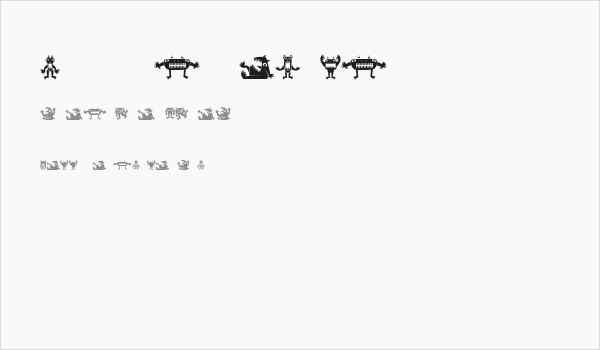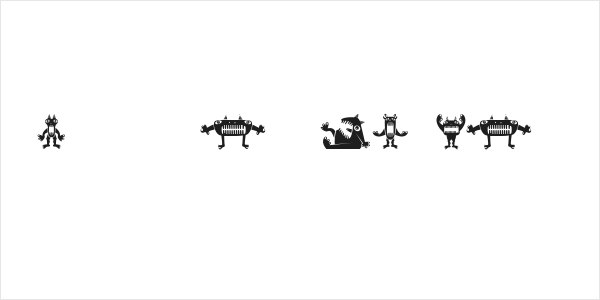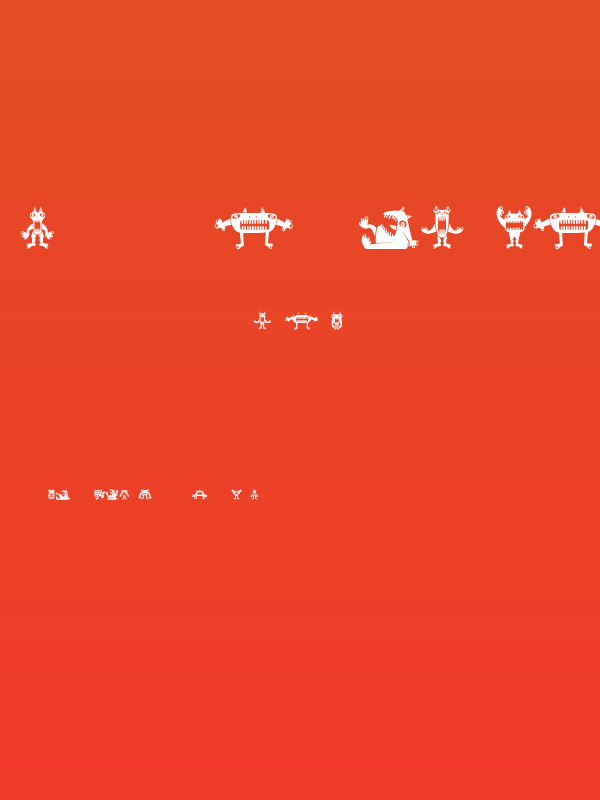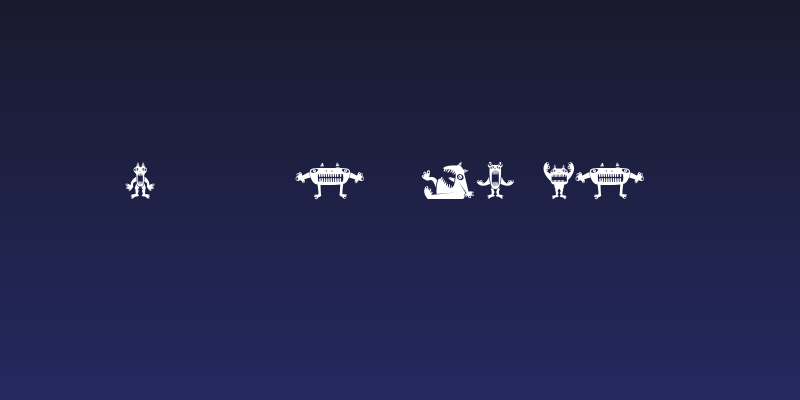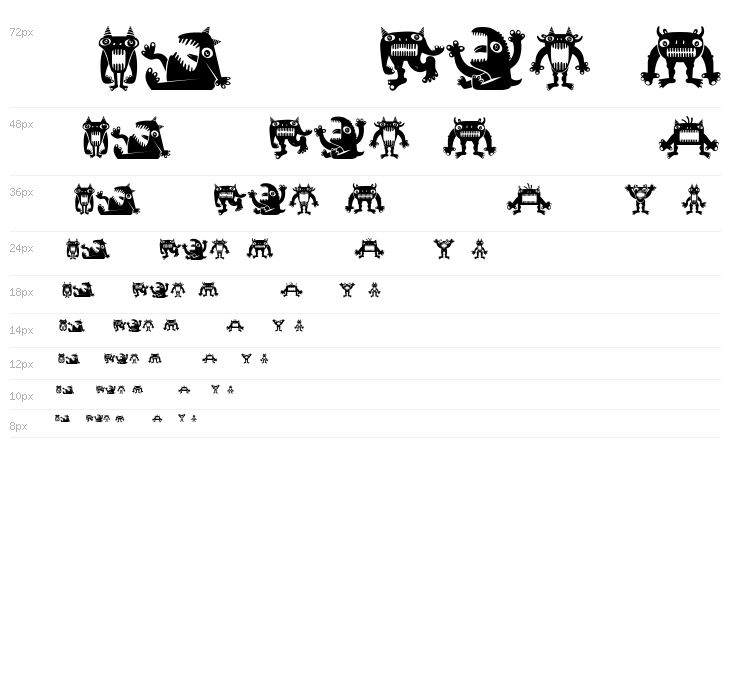
Monstra Regular Font
Monstra Regular Description
This font is a playful and imaginative collection of monster-themed characters. Each letter and symbol is represented by a unique monster design, featuring various shapes, sizes, and expressions. The characters are bold and intricate, with detailed features like eyes, teeth, and limbs, creating a whimsical and fun appearance. The font is highly decorative, making it ideal for creative projects that require a touch of fantasy and humor. Its distinct style is perfect for capturing attention and adding a unique flair to any design.
| Proposed Projects | Ideal for children's books, Halloween-themed designs, party invitations, and playful branding. |